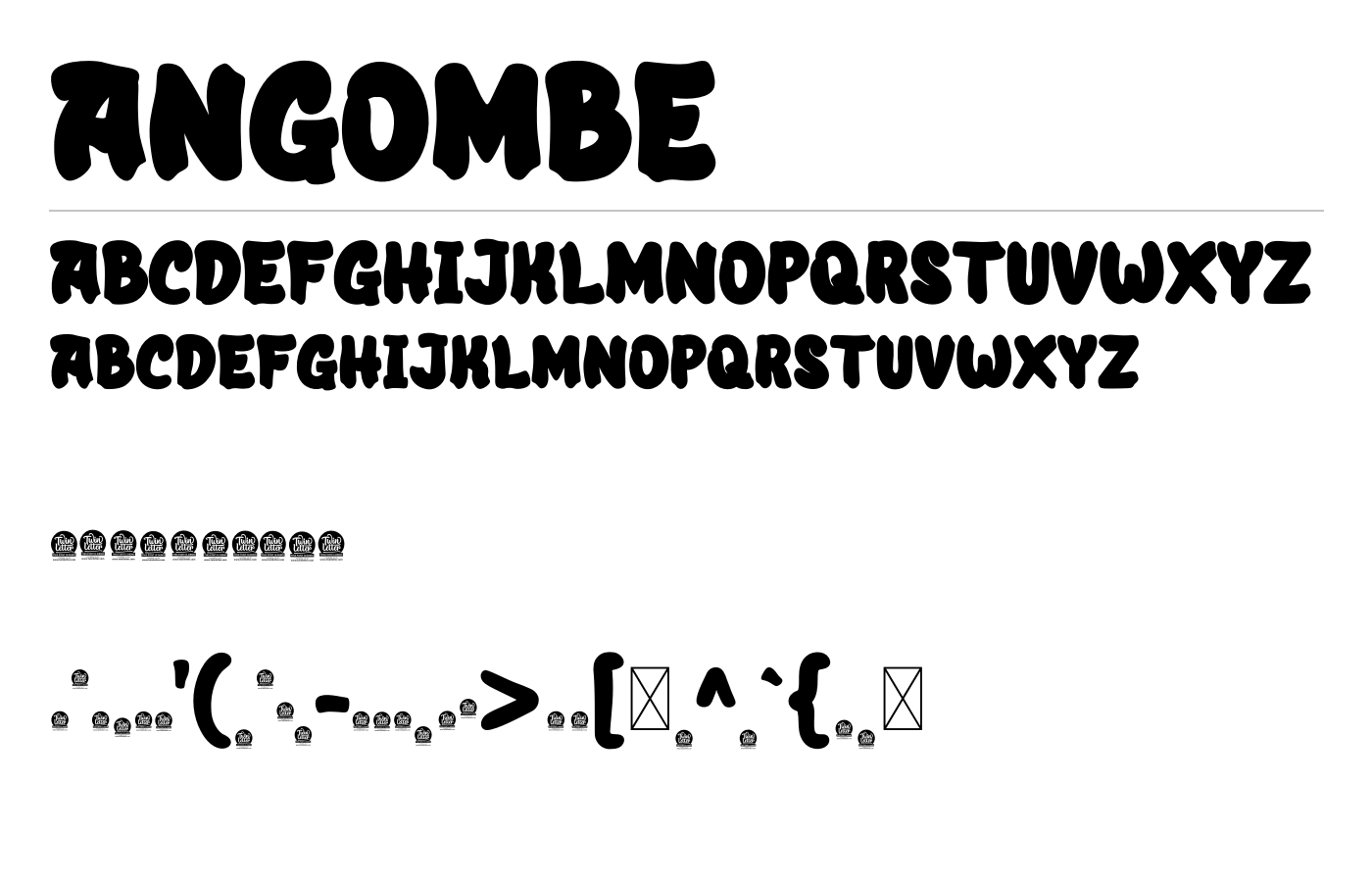
ANGOMBE is a bold, playful sans serif font with a chunky, rounded character design that exudes a fun and casual vibe. Its thick, uniform strokes and high x-height make it highly visible and suitable for attention-grabbing headlines or branding that wants to convey friendliness and energy. Ideal for informal, youthful contexts like posters, children’s materials, or casual logo work, ANGOMBE brings a lively personality wherever it’s used.
ANGOMBE Font
About ANGOMBE Font